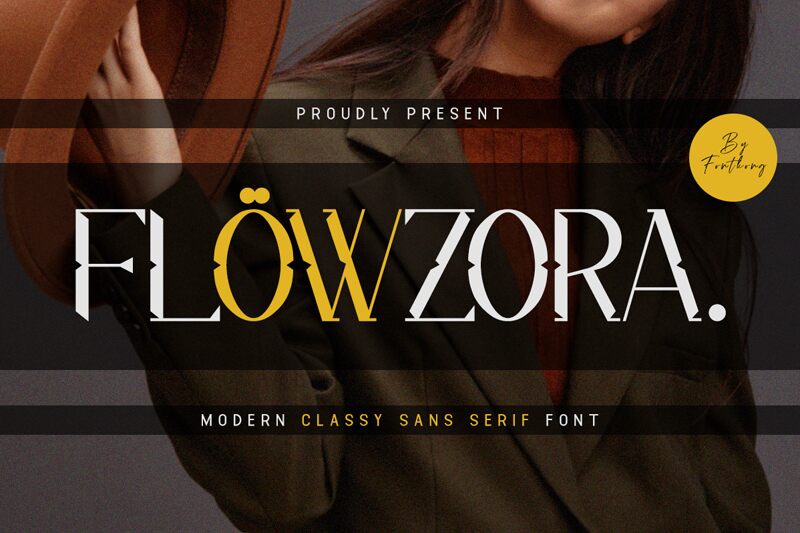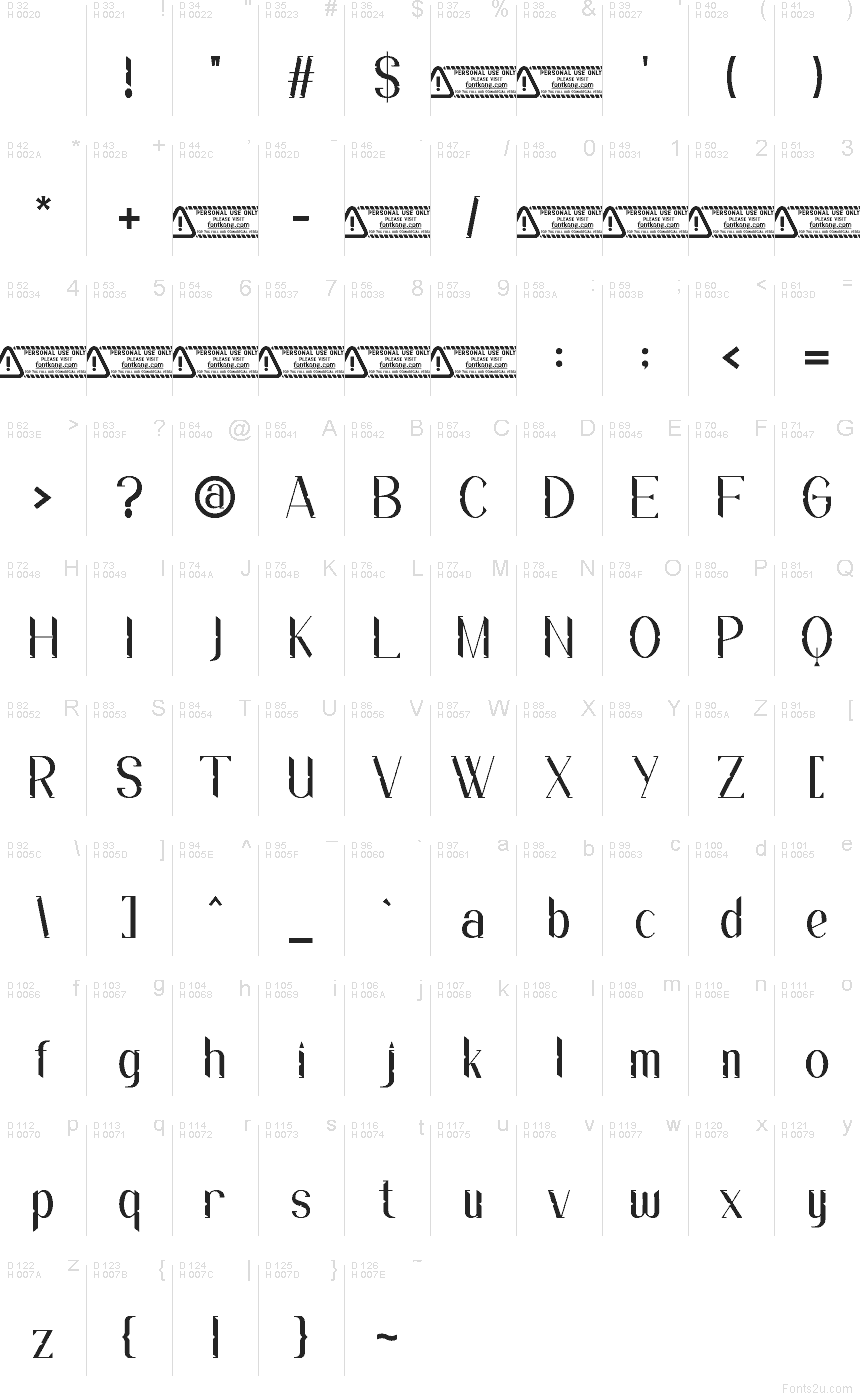
Flowzora font by Kong Font is a free decorative serif typeface that feels both sharp and fluid at once. Its letters carve into the page with knife-like verticals, then soften into sweeping curves that almost look ink-brushed. Those bold triangular notches and sculpted counters give Flowzora a moody, fashion-forward presence that instantly grabs attention without feeling overdone.
Using Flowzora, you get a dramatic, editorial energy that shines on magazine covers, beauty branding, book jackets, posters, packaging, and luxe social media graphics. This free font thrives at larger sizes where its sliced details and elegant curves can really breathe. Pair Flowzora with a clean geometric sans for body text, and let its striking forms handle headlines, logotypes, and bold pull quotes.